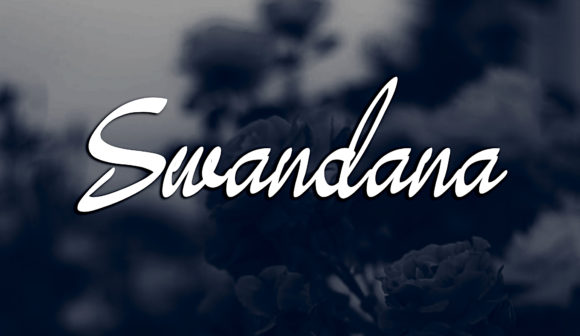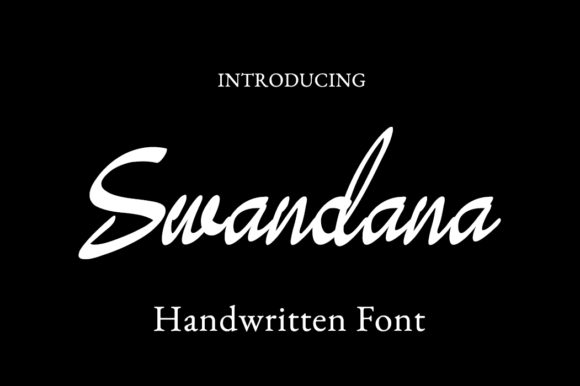
Swandana Font
About Swandana Font
Swandana delivers a classy, fancy and effortless script with a straight baseline and exquisite ligatures. Get inspired by its modern charm!